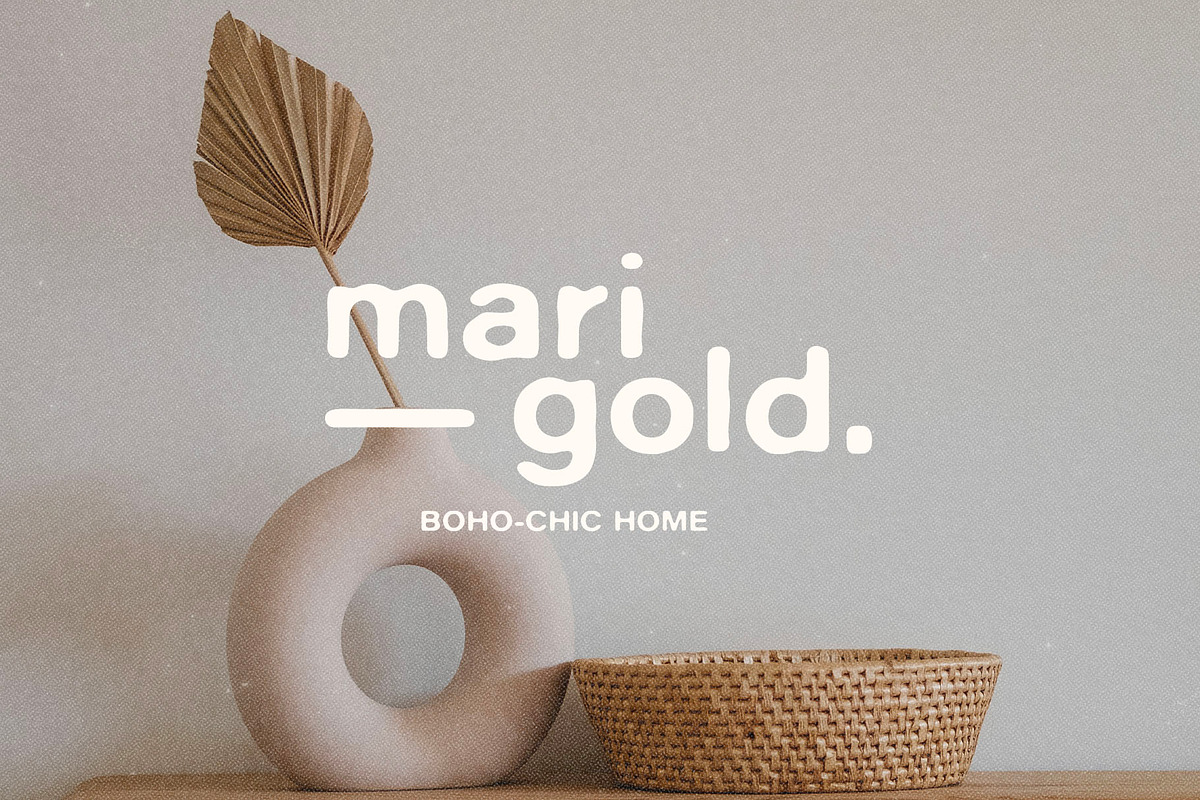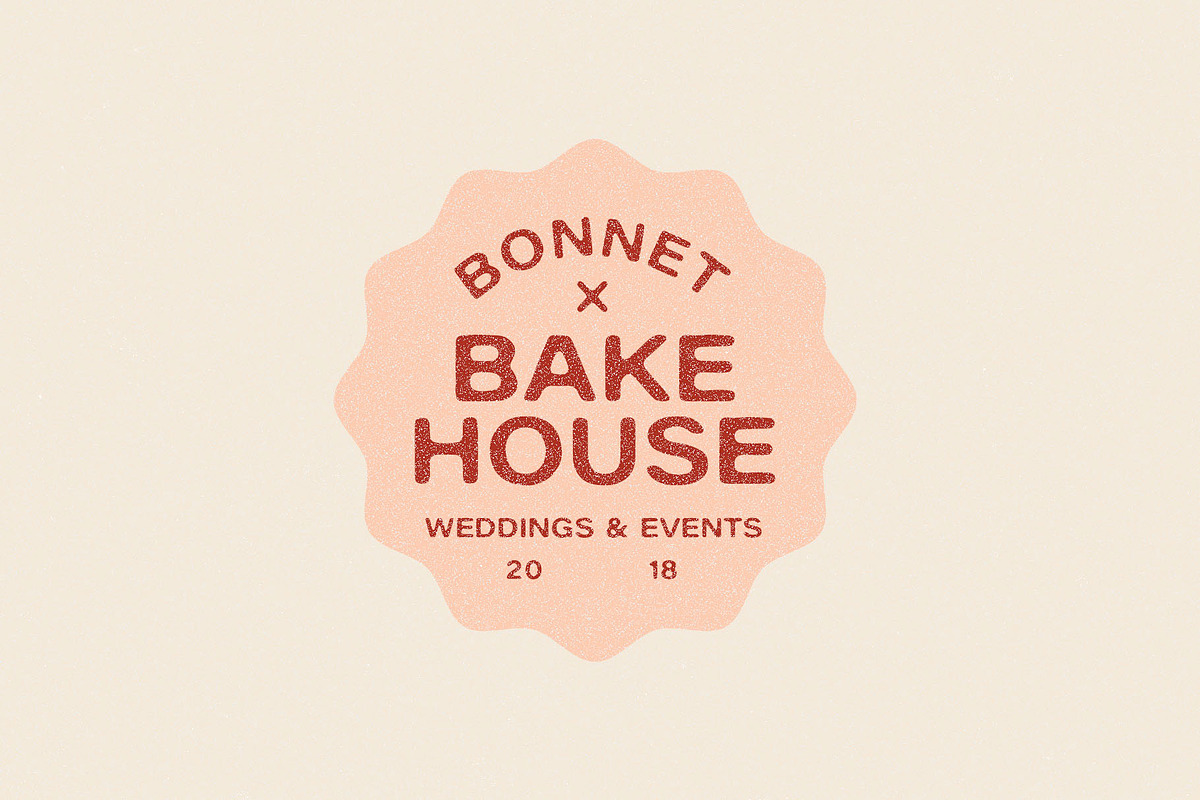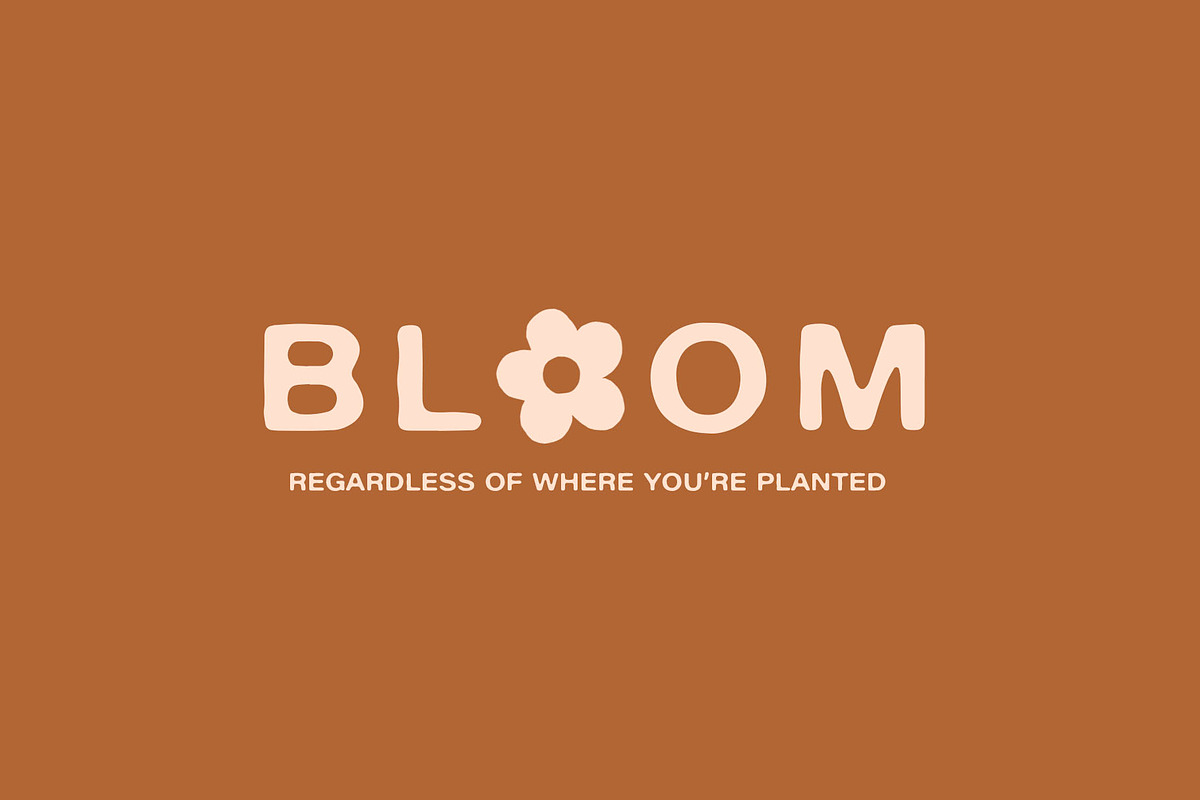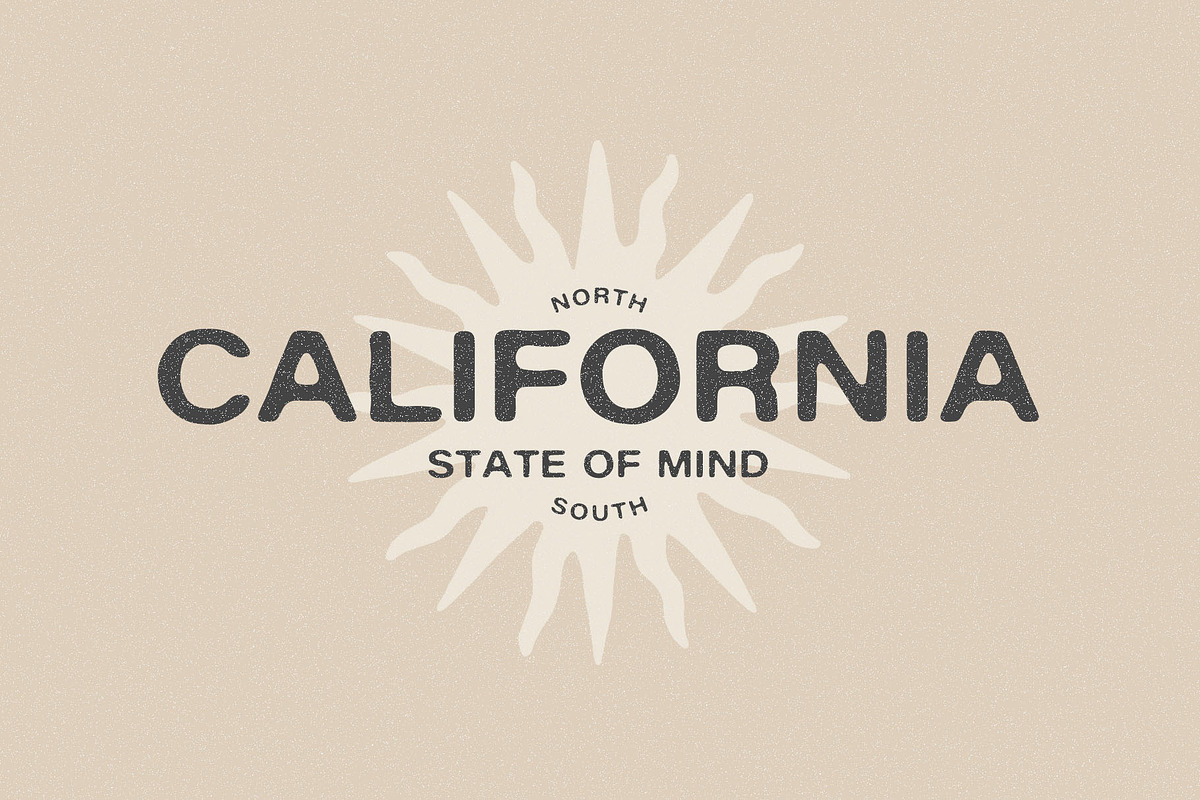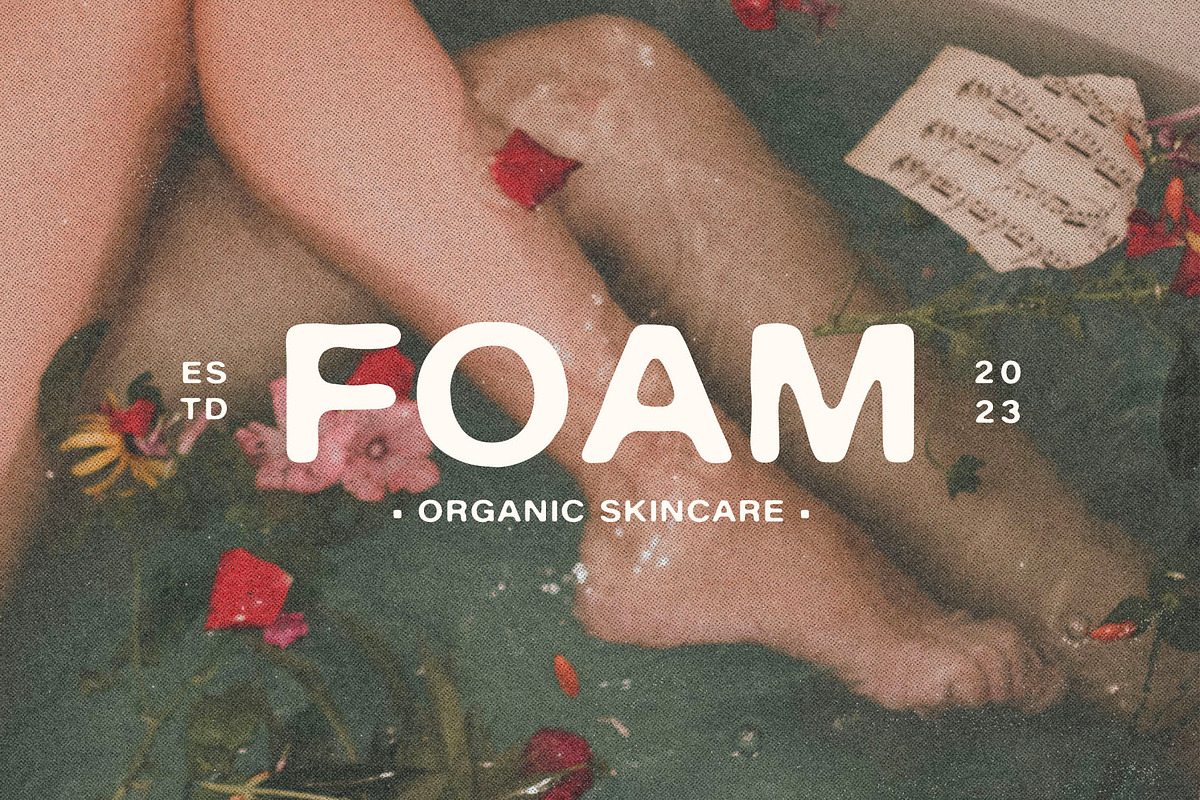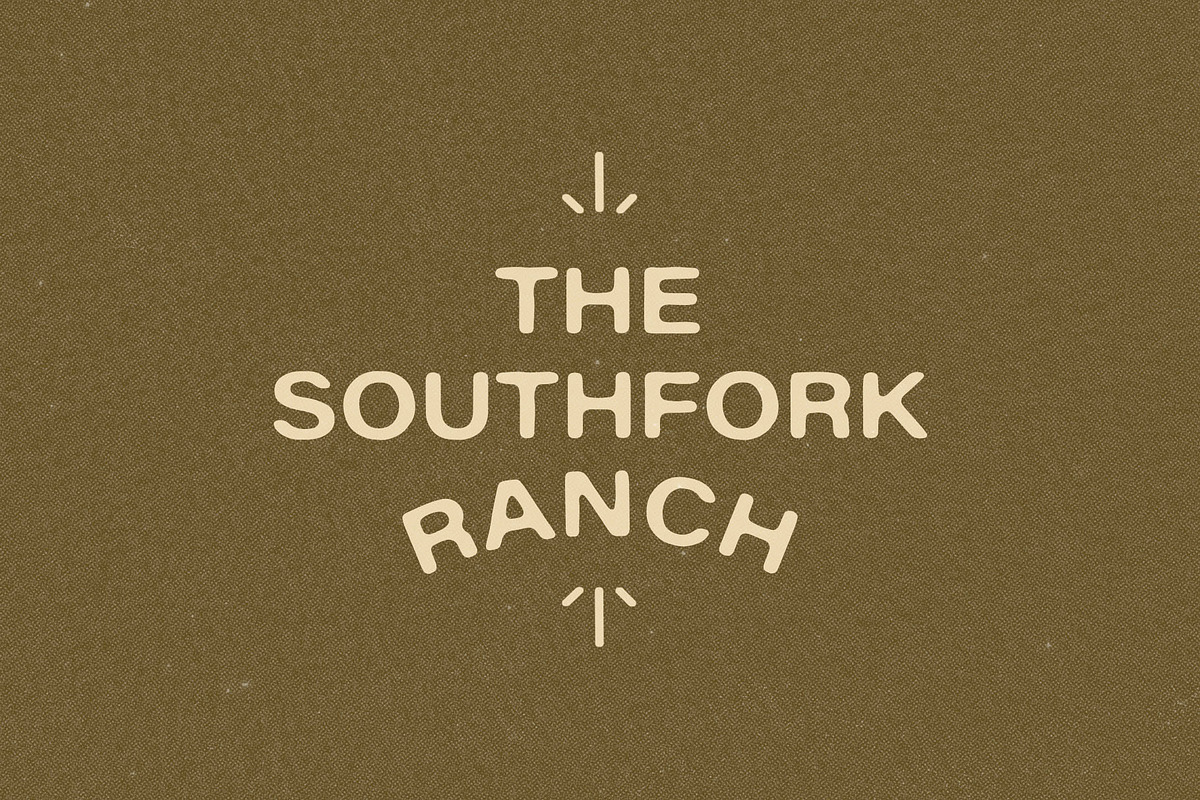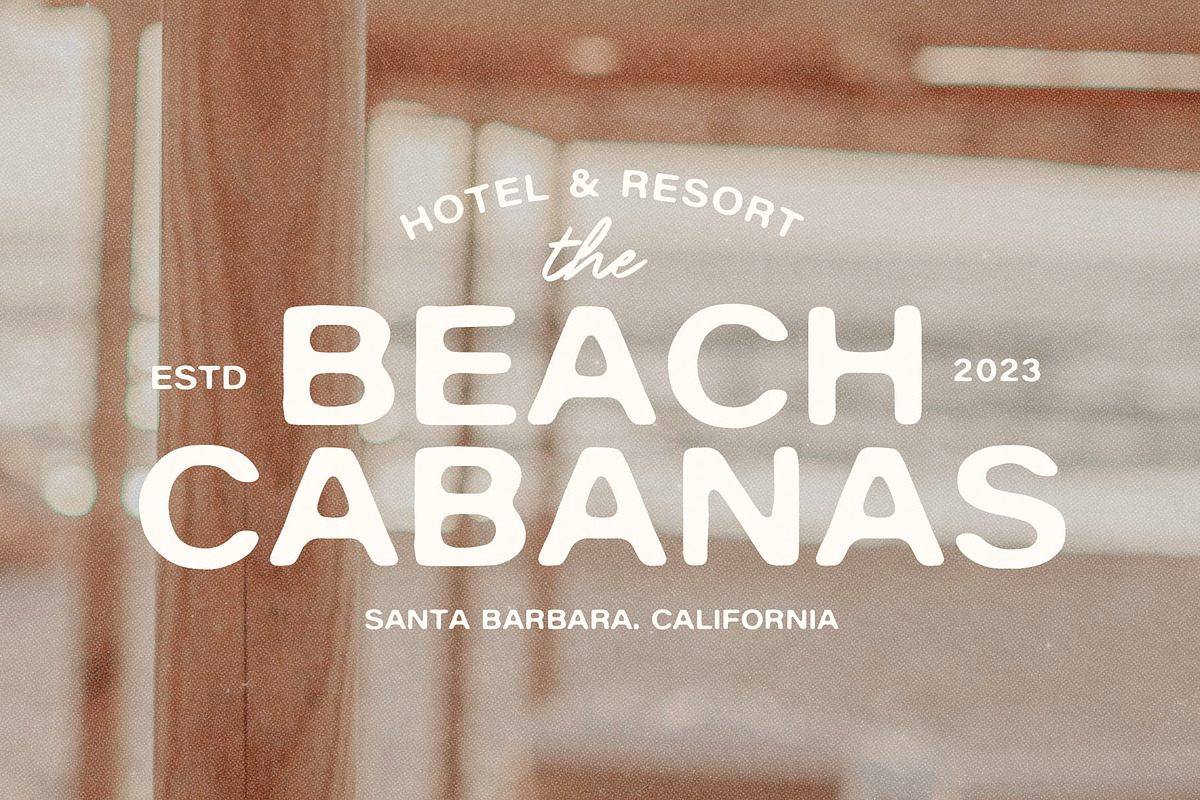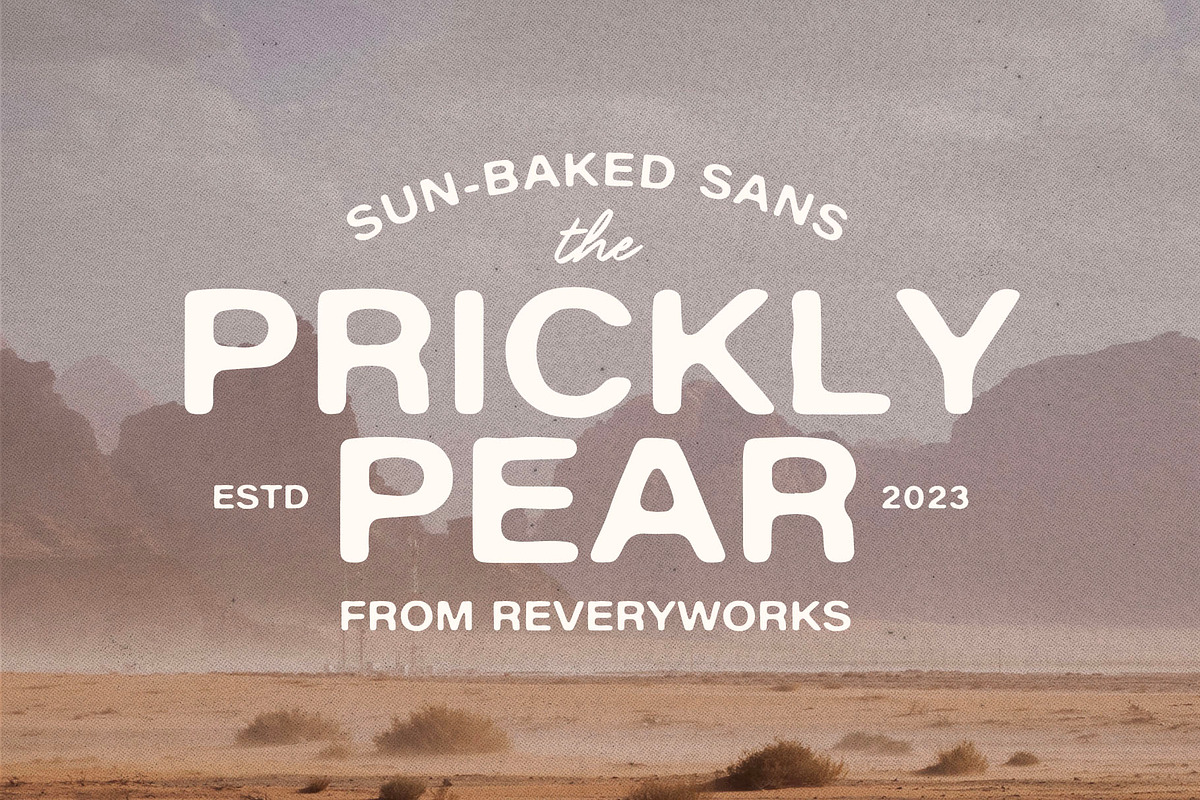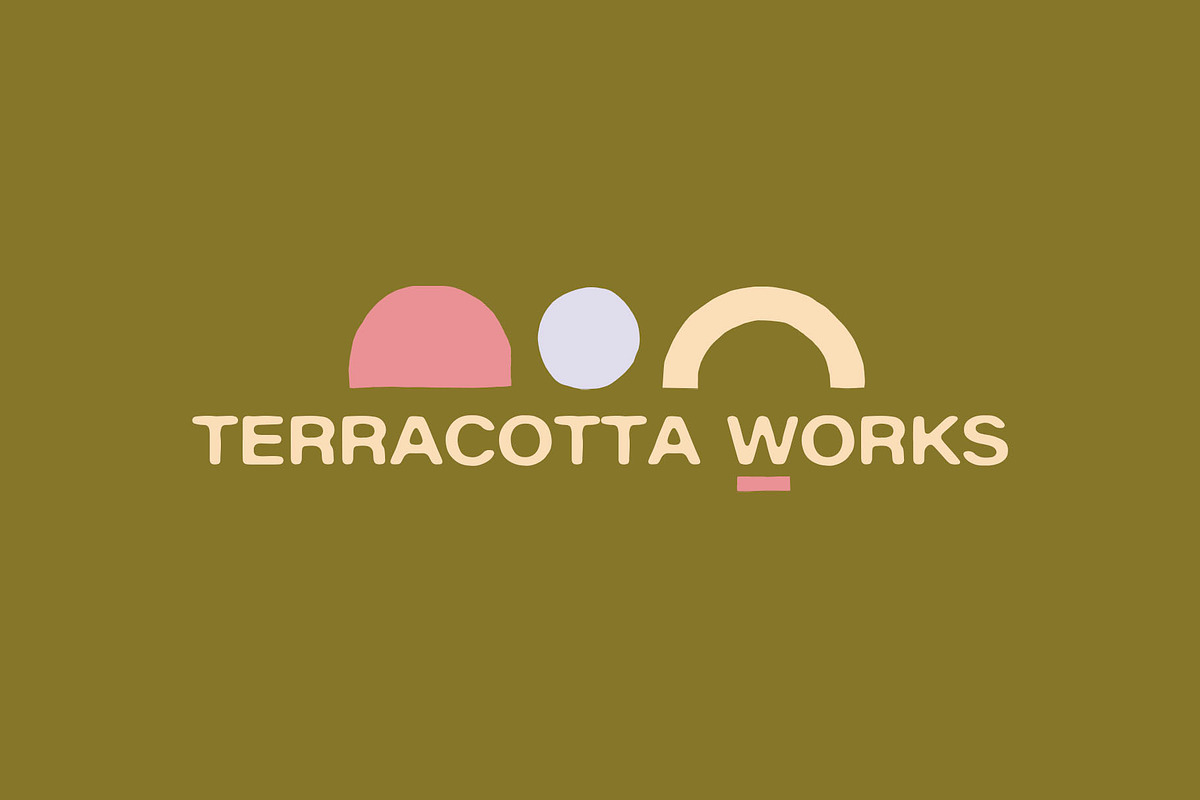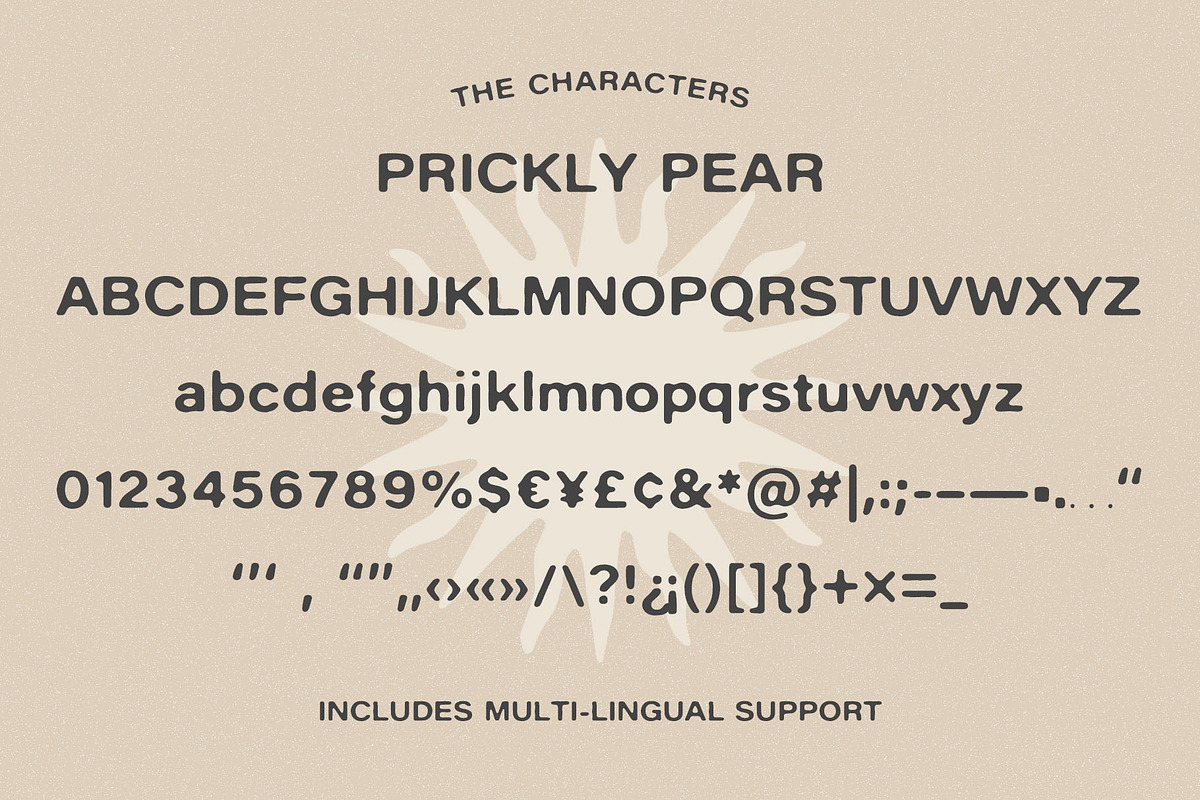
The Prickly Pear Sans + Doodles
Introducing The Prickly Pear Font! – A sun baked sans inspired by Western Desert. It's inky with soft edges, super versatile and minimal. Its perfect for all your Boho inspired design projects, pair it with the matching hand-drawn abstract doodles and your possibilities are endless!
The Prickly Pear font also looks great in small sizes too. Don't forget to play around with the letter spacing for different effects. a Bold version is included as well!
This font includes Multi-lingual support. The following characters are included á â à ä å ã æ ç é ê è ë í î ì ï ı ñ ó ô ò ö õ ø œ š ß ú û ù ü ý ÿ ž À Ä Å Ã Æ Ç É Ê È Ë Í Î Ì Ï Ñ Ó Ô Ò Ö Õ Ø Œ Š Û Ù Ü Ý Ÿ